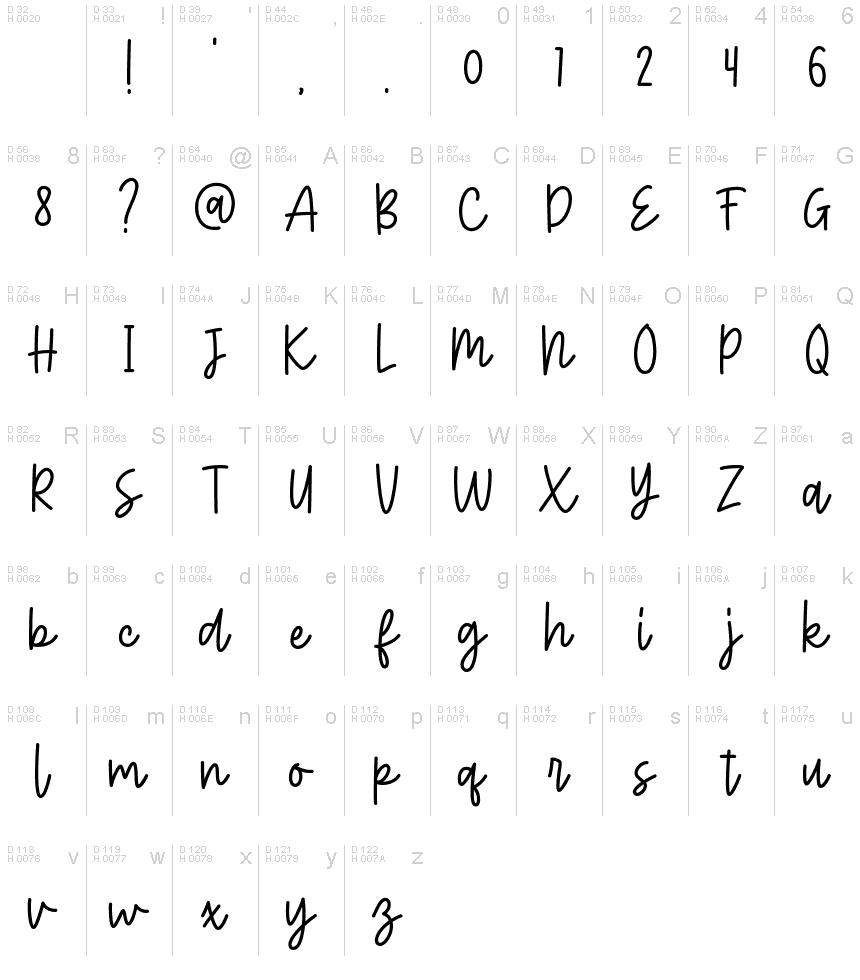
Bratterly
Designed by Typehand, Bratterly font is a beautiful handwritten typeface containing upper & lowercase characters, numerals and a large range of punctuation.